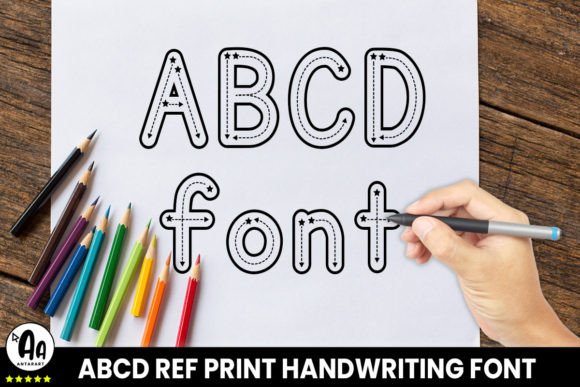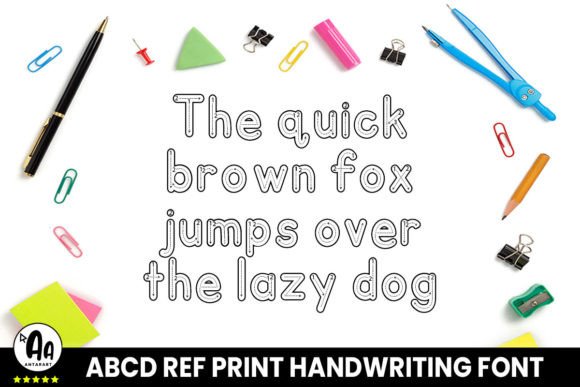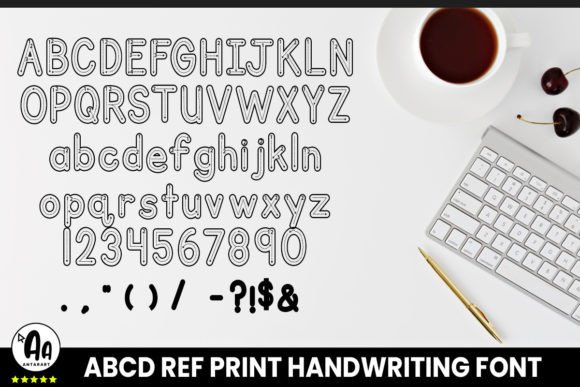
Discover the Power of Learning through Design with ABCD Ref Outlined Arrows3 Font
Have you ever been tasked with creating educational materials that make learning fun and engaging? As a designer, you know the importance of using the right tools to bring your ideas to life. For me, it all started with a simple moment of watching a child’s face light up as they mastered a new letter. It was then that I realized the impact a well-designed font could have on the learning process.
That’s where the ABCD Ref Outlined Arrows3 Font comes in – a unique outline display font based on the D’Nealian Method US school. This font is designed to help create thousands of worksheets, making it an invaluable resource for teachers and designers looking to create interactive and enjoyable learning materials. With its versatility and interactive design, the Abcd Ref Outlined Arrows3 Font is a valuable addition to any designer’s toolkit.
Key Features of Abcd Ref Outlined Arrows3 Font
- Font Style: Outlined Arrows Font with a modern and sleek design, ideal for creating visually appealing graphics and presentations.
- Character Set: Includes a comprehensive set of characters, including uppercase and lowercase letters, numbers, punctuation marks, and special characters, making it a versatile font for various applications.
- Unique Characteristics: Features a unique outlined design with bold lines and smooth curves, creating a modern and sophisticated look that stands out in presentations, graphics, and digital content.
Abcd Ref Outlined Arrows3 Font Review
Overall, I think Abcd Ref Outlined Arrows3 Font is a great addition to any designer’s toolkit. ✨ It’s versatile, easy to use, and the outlined arrow design gives it a modern twist. The font is perfect for creating visually appealing infographics, presentations, and even logos.
- High-quality design: The font is well-designed and looks great on various backgrounds.
- Variety of arrows: The font includes a range of arrows in different directions, making it suitable for various applications.
- Limited language support: The font may not be compatible with certain languages or scripts.
- Not suitable for body text: Due to its outlined design, the font may not be the best choice for large blocks of body text.
In conclusion, Abcd Ref Outlined Arrows3 Font is a solid choice for designers who need a modern, outlined arrow font. While it has some limitations, its versatility and customizability make it a valuable addition to any design project.